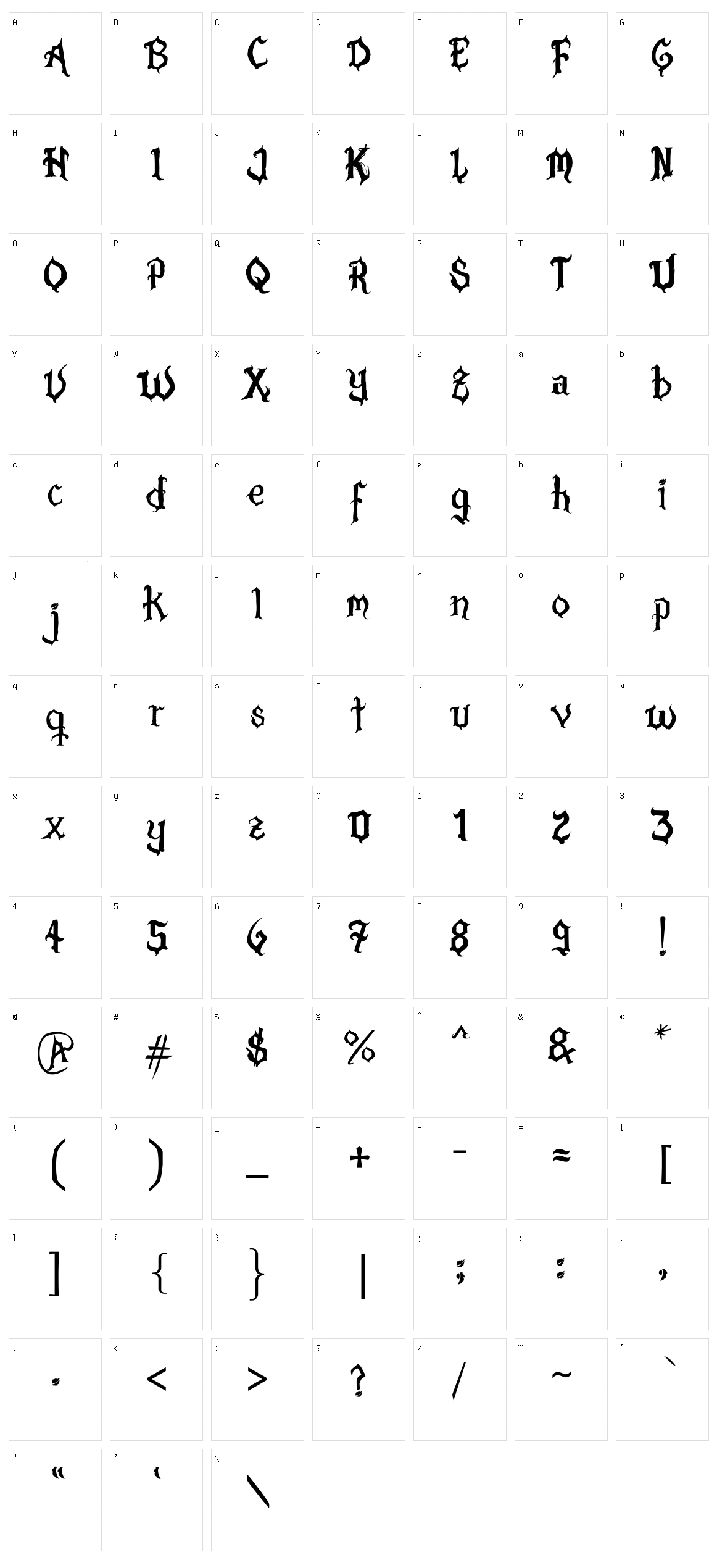
Pasi?n Ac?stica
Designed by: Juan Casco
Pasión Acústica
(Ditono)
Serif font tagged like horror in many times is a opposite of La Flama y La espina being twice a perfect complement